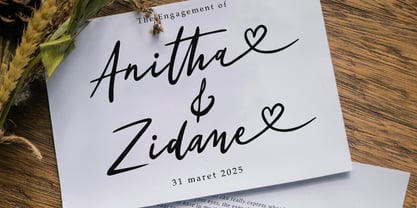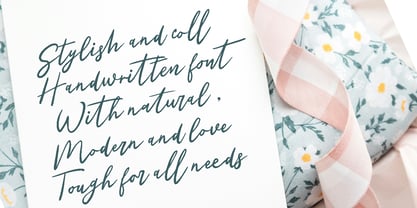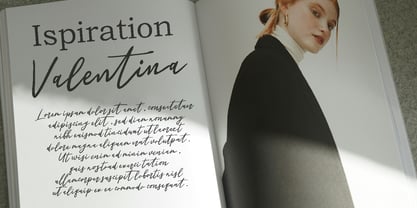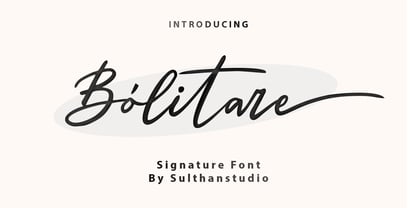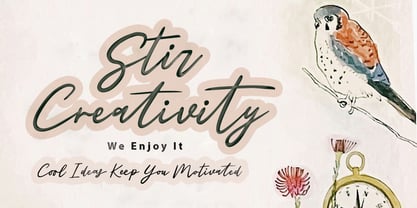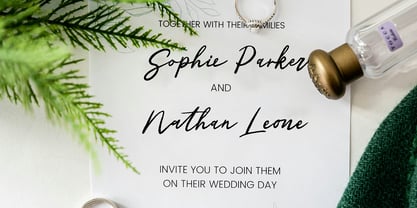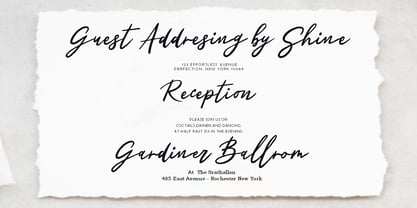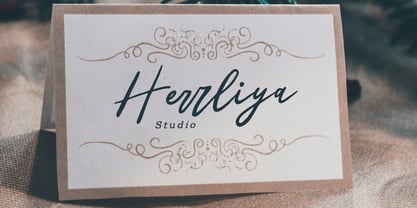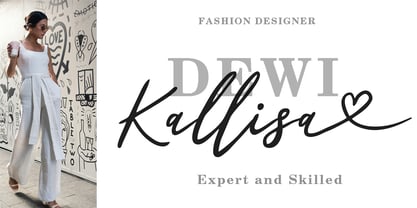
Bolitare
by Sulthan Studio
The Bolitare Font Family was designed by Nasrullah and published by Sulthan Studio. Bolitare contains 1 styles. More about this family
Unveil the singular design allure of Bolitare Signature, our Trendy Chic Handwritten Font that effortlessly breathes life and amorous quality into your creative endeavours. The judicious balance of organic grace and bold expressiveness in this adaptable font sets the tone for uniqueness and novelty. Whether your project calls for love-infused stationery designs or subtly elegant branding work, Bolitare Signature envelops all creative ventures in its distinctive aura of chicness and refinement.